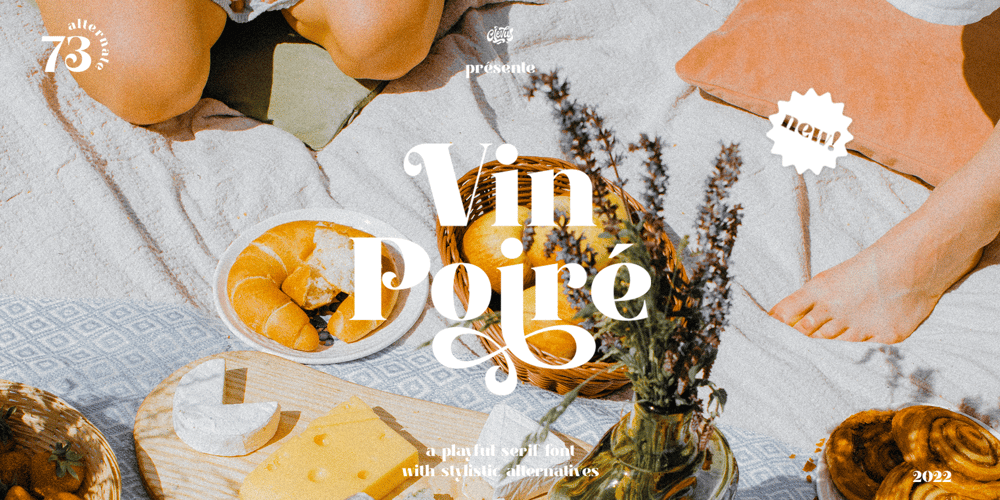
VinPoire Font Family was designed by Alfinu Zafir and published by Clevus. VinPoire contains 1 styles and family package options. Proudly present VinPoiré Typeface inspired by 1960s style.VinPoiré equipped with several OpenType. Have 73 unique alternates and ligatures. Comes with alternatives and ligatures, and helps to create stunning logos, quotes, posts, blog posts, branding projects, magazine imagery, wedding invitations, and much more.Font Features : Lettres, numbers, symbols, and punctuation 73 alternates and ligatures No special software required they may be used even in canva, any basic program /website apps that allows standard fonts That’s it folks! Multilingual Support Language Support: Danish, English, Estonian, Filipino, Finnish, French, Friulian, Galician, German, Gusii, Indonesian, Irish, Italian, Luxembourgish, Norwegian Bokmål, Norwegian Nynorsk, Nyankole, Oromo, Portuguese, Romansh, Rombo, Spanish, Swedish, Swiss-German, Uzbek (Latin)Follow My Shop For Upcoming Updates Including Additional Glyphs And Language Support. And Please Message Me If You Want Your Language Included or If There Are Any Features or Glyph Requests, Feel Free to Send me A Message.Have a Good Day !